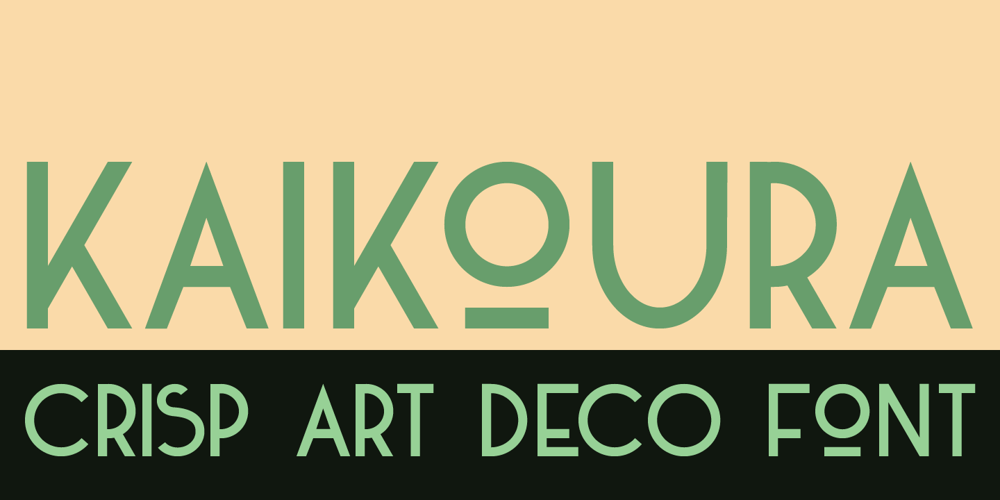
Kaikoura Font Family was designed by David Kerkhoff and published by Hanoded. Kaikoura contains 1 styles and family package options. Kaikoura is a small town on the east coast of the South Island of New Zealand. It is a very pleasant, laid-back place where the mountains meet the sea. Kaikoura is also the best place in the world to spot sperm whales. Kaikoura font is quite similar in appearance: it is laid-back and beautiful, has sharp peaks and generous curves. I am still trying to find out how to add whale watching to this description… Kaikoura is an all caps font with a lower case alternative for the o and y. It comes with an ocean of diacritics.